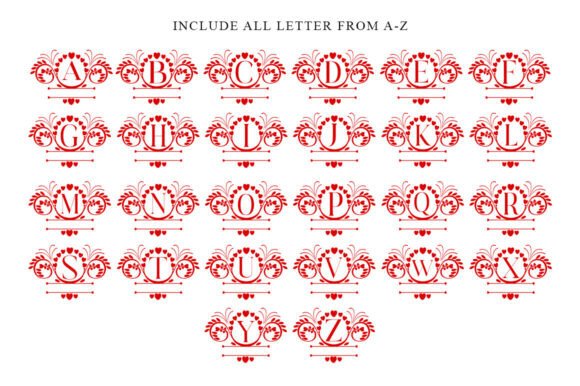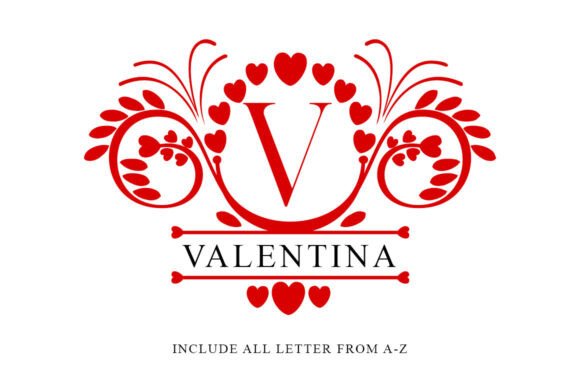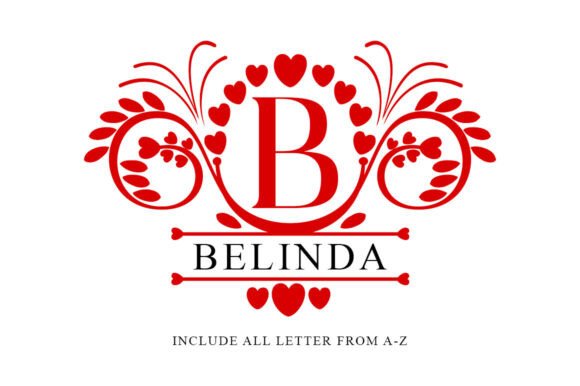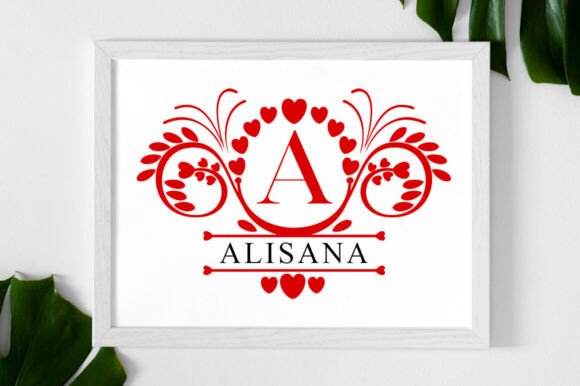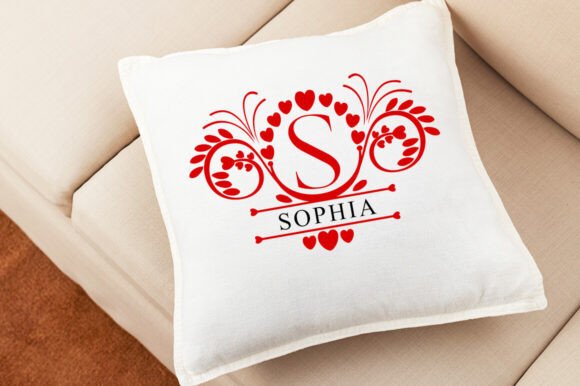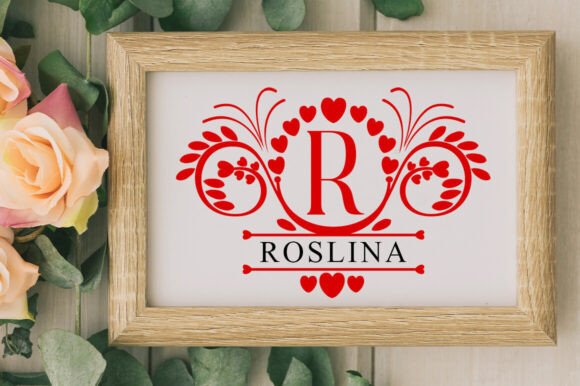
Introduction to Melina Monogram Font Font
Fonts play a crucial role in design, and the Melina Monogram Font font is a typeface that brings both character and versatility to any project. Whether you’re working on a branding project, a website, or a print design, the Melina Monogram Font font offers a unique style that can elevate your work.
Introducing the Melina Monogram font โ a unique typographic expression, adorned with charming heart-shaped accents.
Crafted with love and warmth, the Melina Monogram font offers unmatched charm and appeal for Valentineโs Day-themed creations, projects filled with genuine love, or captivating childrenโs endeavors Its playful attitude transcends the ordinary, giving a uniquely personal touch to all your artistic endeavors.
Key Features of Melina Monogram Font Font
- โ Includes a wide range of glyphs and characters
- โ Ideal for logos, branding, websites, and print
Why Choose Melina Monogram Font Font?
The Melina Monogram Font font is more than just a typeface โ it’s a design tool that helps you communicate your message with style and clarity. Its unique character set and versatile design make it suitable for a wide range of applications, from elegant invitations to bold headlines.
With its carefully crafted letterforms and balanced proportions, the Melina Monogram Font font ensures readability and visual appeal across all mediums.
What makes Melina Monogram Font font special?
The Melina Monogram Font font stands out with its unique design, exceptional readability, and versatility across various design applications.